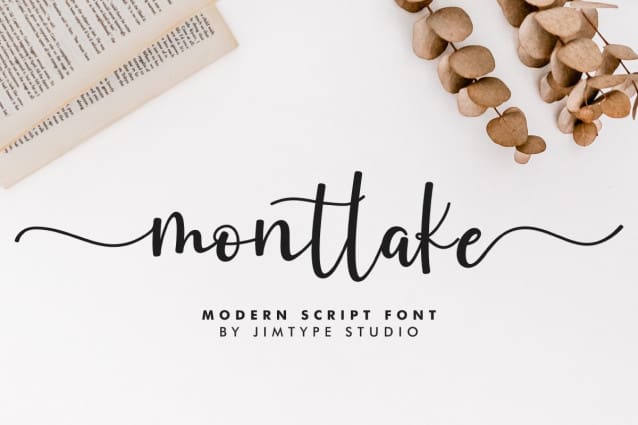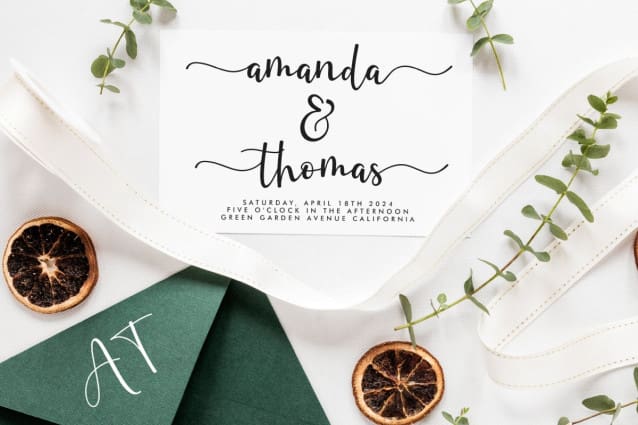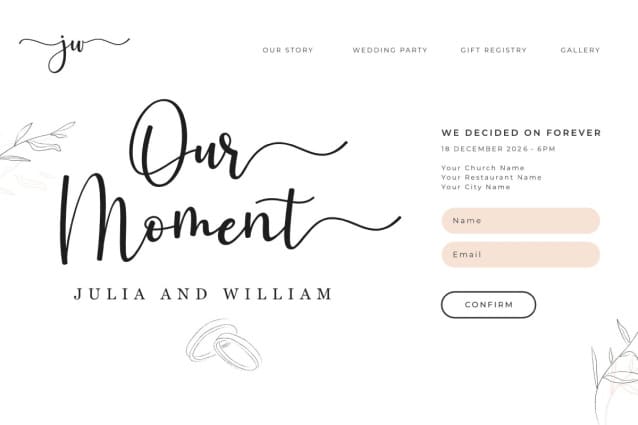
Montlake Font
Montlake Font —where sophistication meets creativity! Elevate your projects with this exquisite font tailored for cute branding, enchanting wedding invitations, personalized wedding branding, and captivating website designs. Let Montlake Font be the signature touch that brings a perfect blend of elegance and charm to your creative endeavors.
Designer Name: jimtypestudio